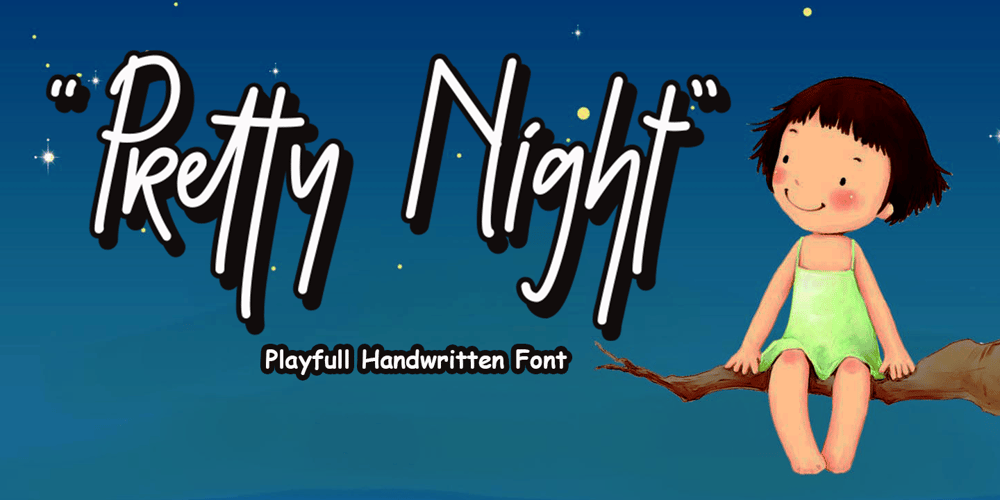
Pretty Night
Pretty Night font
Pretty Night Font Family was designed by Sarwo Edhi Prayitno and published by Haksen. Pretty Night contains 6 styles and family package options. Hello Guys,In this case I will let You know if I’ve released new font product with the name “Pretty Night”“Pretty Night” is a font that is designed with a natural impression on every scratch,As you can see in the preview how “Pretty Night” is written like handwriting, it is suitable for various brands.What You Will Get darling? 🙂 – Pretty Night otf – Pretty Night S-1 otf – Pretty Night S-2 otf – Bonus swash and doodle otf S – Bonus swash and doodle otf S2Please enjoy and have fun with this font.Thanks